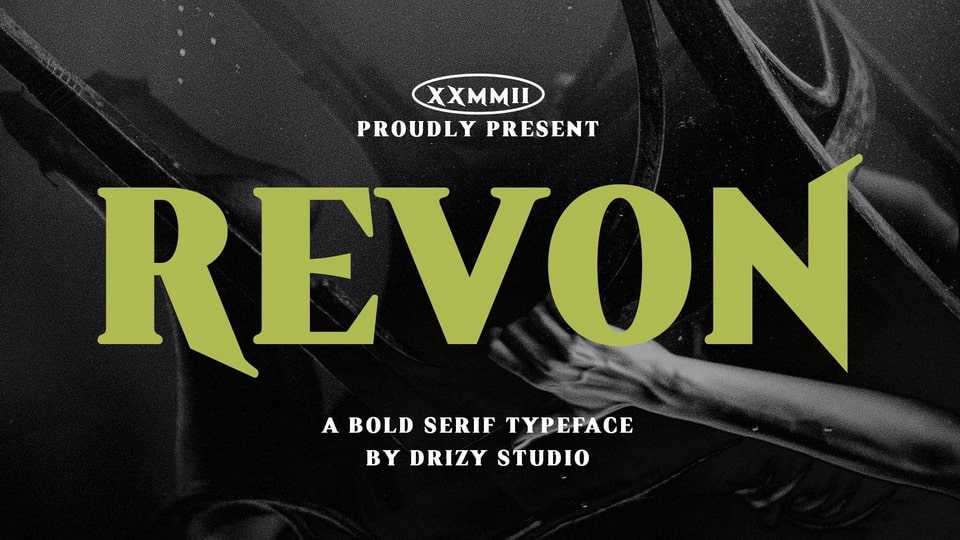
Vonem Font › Fontesk – Download Grátis
Download Vonem font, a bold display serif typeface inspired by Venom film poster. Offering all the basic styles you will need for a successful project.
Designer: Drizy Studio